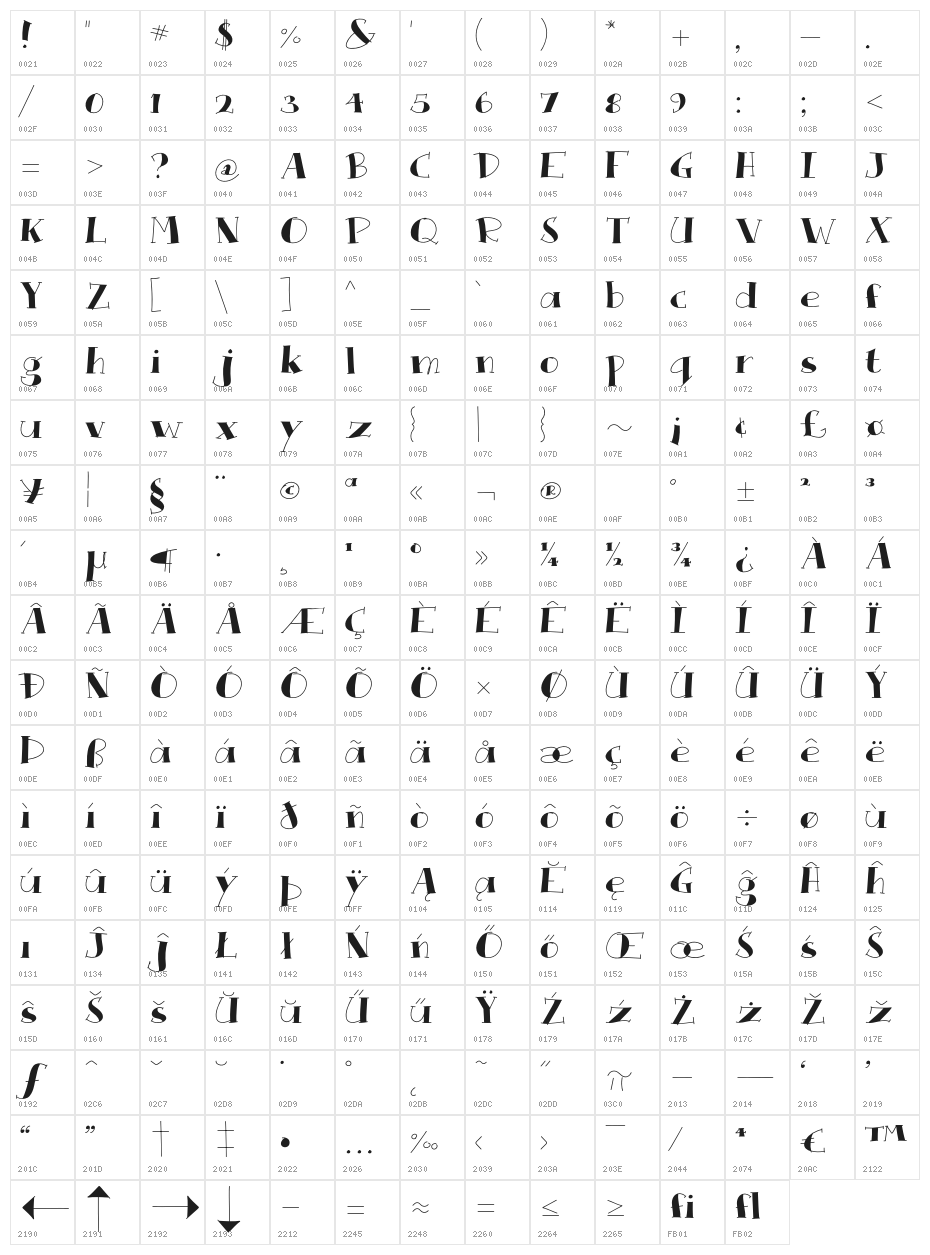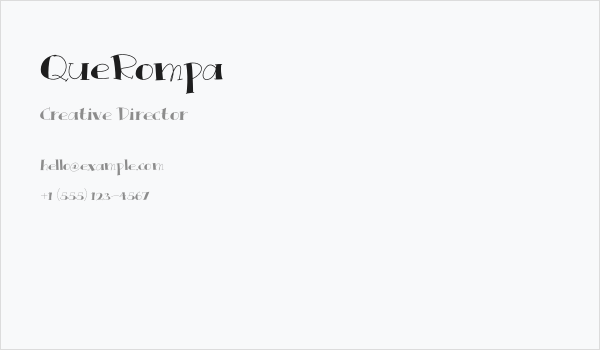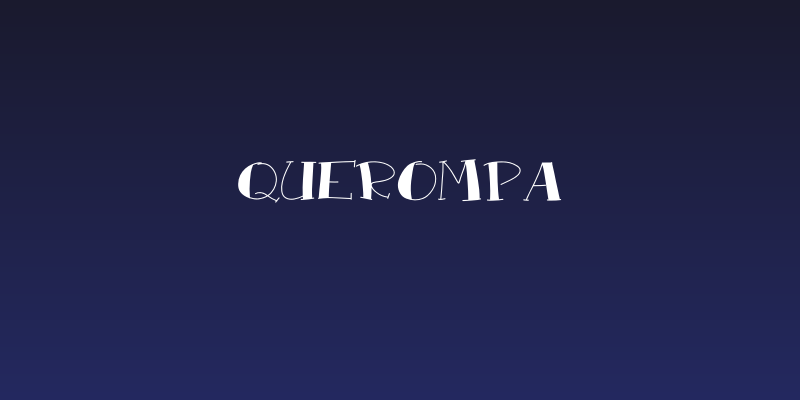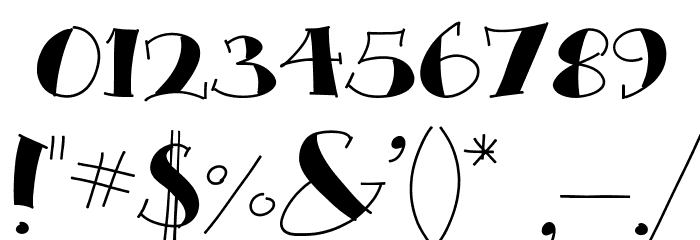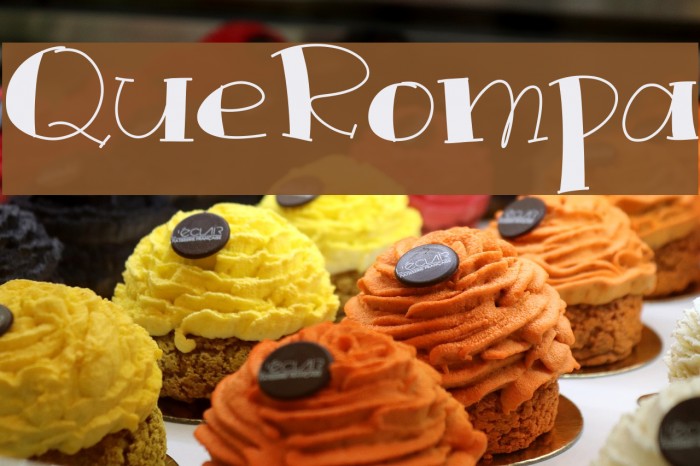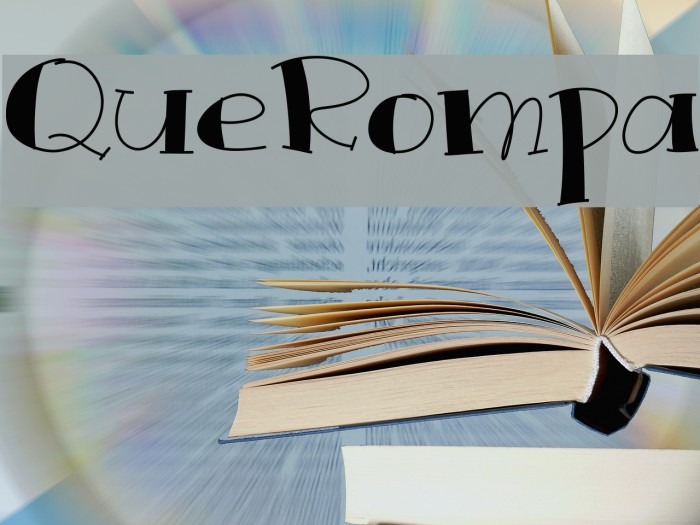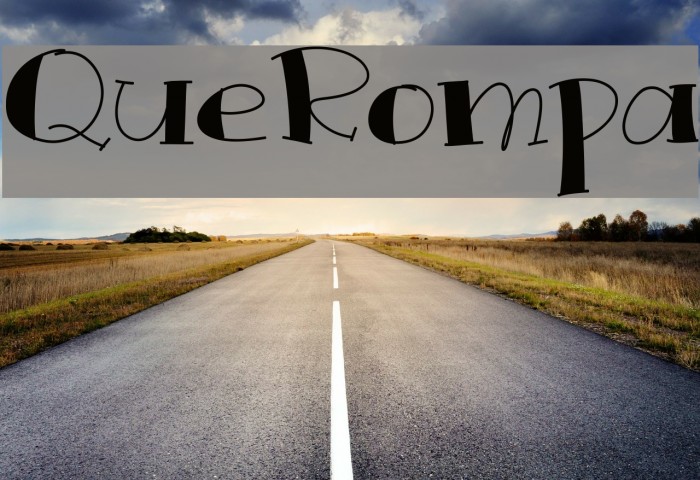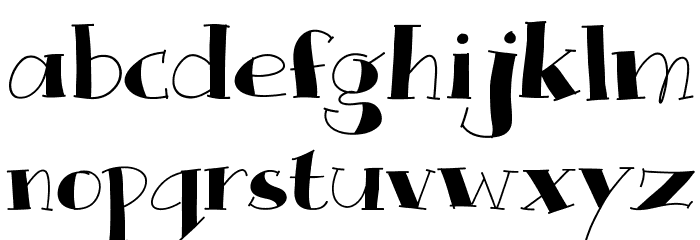
QueRompa Font
QueRompa Description
This font features a playful and dynamic style, characterized by its irregular and whimsical letterforms. The uppercase letters exhibit a bold and slightly exaggerated appearance, with varying stroke widths that add a sense of movement and energy. The lowercase letters maintain this lively aesthetic, offering a unique blend of curves and angles that create a visually engaging text. The numerals are equally distinctive, with a bold presence and creative flair. Special characters are designed with the same playful spirit, making this font ideal for projects that require a touch of creativity and fun.
| Proposed Projects | Ideal for children's books, playful branding, creative posters, and artistic invitations. |